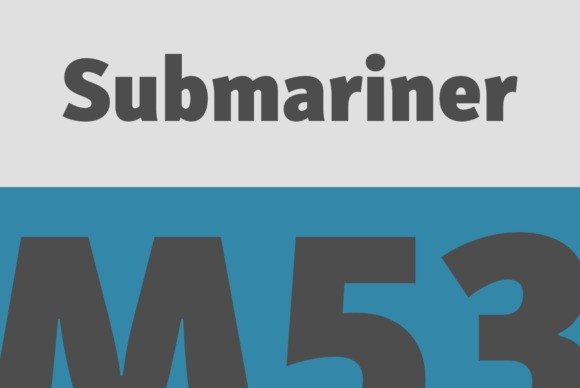
Submariner Font
Submariner is a modern, simple and cool Sans Serif font. Simple but with a strong visual effect, this font will instantly make your creation more appealing than any others.